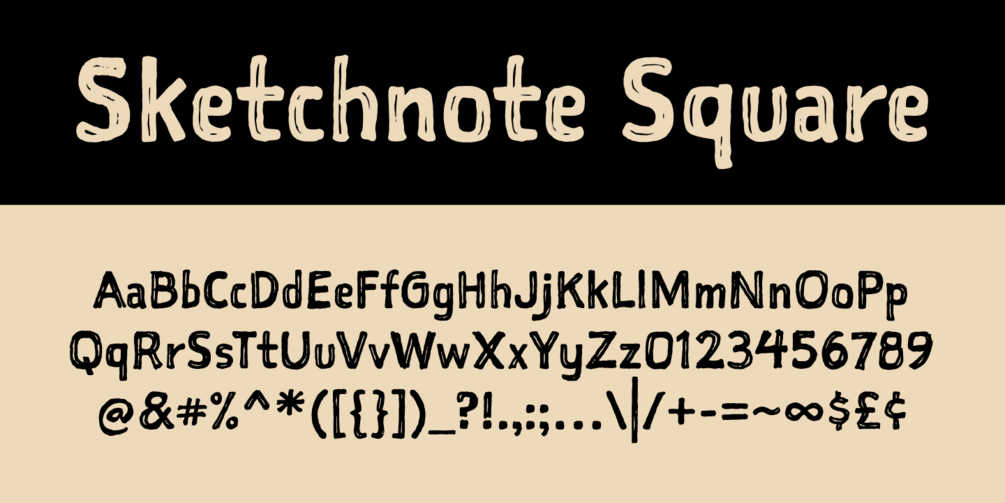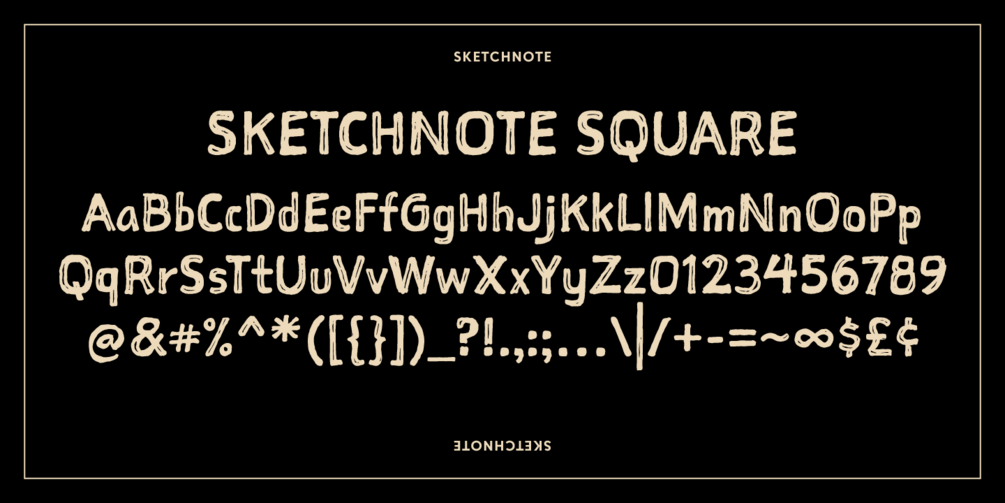
Sketchnote Square | Desktop
The Sketchnote Typeface is a fun and clever handwritten, hand-drawn type family designed by Mike Rohde, the celebrated author of “The Sketchnote Handbook” (Peachpit Press).
As a part of the family of fonts, Sketchnote Square is a bold, somewhat compressed headline type made to complement the three body text fonts. Drawn instead of written, the characters in Square have neat little happenstance voids within the strokes. Sketchnote Square can fulfill the demands of a variety of design projects where a handcrafted aesthetic and ease-of-use is desired.